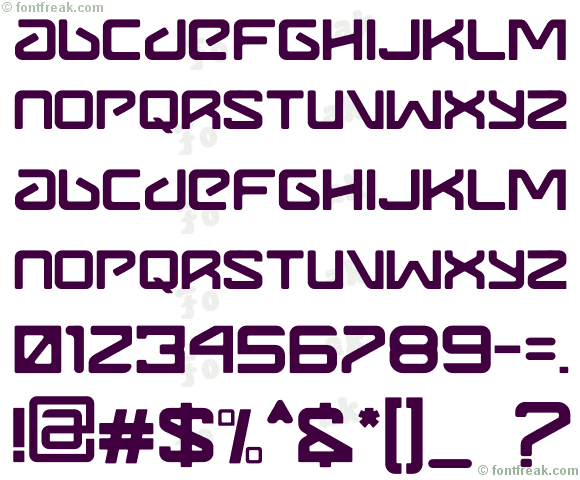
Metavers Rounded
About Metavers Rounded
Metavers Rounded is a contemporary sans-serif font designed by MaknaStudio in 2022, showcasing a modern aesthetic that appeals to a wide range of creative projects. The font features rounded edges and a clean, geometric structure that enhances readability while maintaining a friendly and approachable vibe. Its stroke weight is consistent, providing a balanced appearance, and the even spacing between letters adds to its clarity, making it an ideal choice for both digital and print applications.
This versatile font can be effectively utilized in various contexts. For instance, it is an excellent choice for branding purposes, helping small businesses create a distinctive identity. Its modern look makes it suitable for restaurant menus, where clarity and style are crucial for enticing customers. Additionally, Metavers Rounded can elevate wedding invitations, providing a touch of elegance and playfulness to special events. Its unique design also lends itself well to movie posters, capturing attention with a contemporary flair. Content creators can leverage this font for social media graphics, ensuring their posts stand out in crowded feeds.
Targeting graphic designers, small business owners, and content creators alike, Metavers Rounded offers a refreshing alternative to more traditional typefaces. Its balance of modernity and friendliness appeals to those seeking to convey a forward-thinking brand image.
What sets Metavers Rounded apart is its ability to blend functionality with style seamlessly. The rounded elements soften the overall look, making it approachable while still retaining a professional essence. For anyone looking to enhance their design projects with a unique typeface, the Metavers Rounded font free download is a must-have resource that combines aesthetics with versatility.